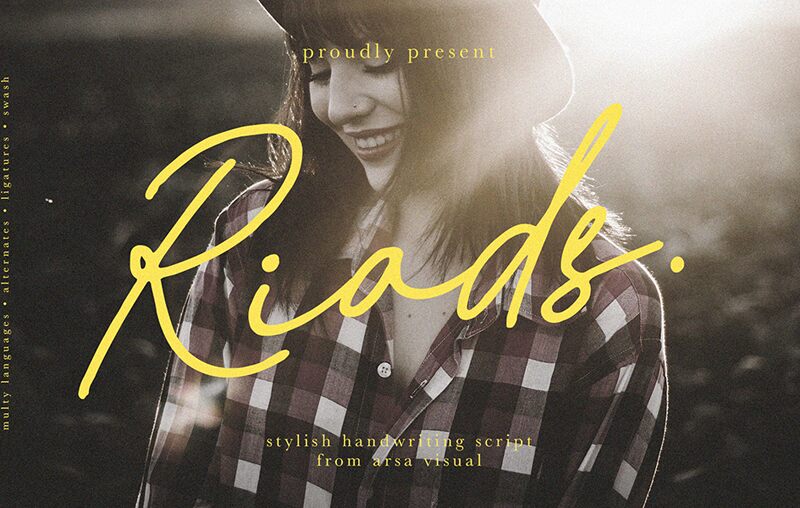
Riads Script Regular
Riads Script font by Gede Sugiantara is a free light handwritten font that solves the “looks authentic but still reads clearly” dilemma. Its inked line is slim with a touch of pressure contrast, gentle slant, and airy spacing, so long words don’t tangle and short ones feel like a quick, confident signature. Subtle baseline sway and soft entry strokes keep it human without turning fussy.
Using Riads Script, headlines and names glide across layouts with an easy, elegant rhythm. It shines on boutique logos, wedding invites, beauty packaging, social quotes, menu headers, and thank-you cards. This free font loves generous letterspacing and medium sizes; pair it with a clean, unobtrusive sans serif to let the script carry the mood.